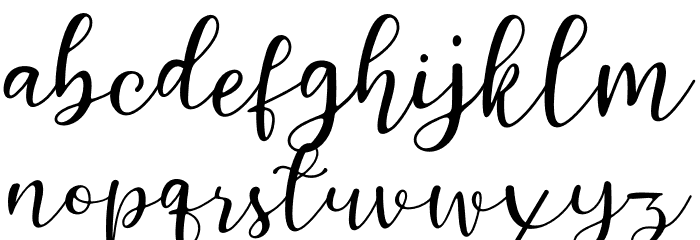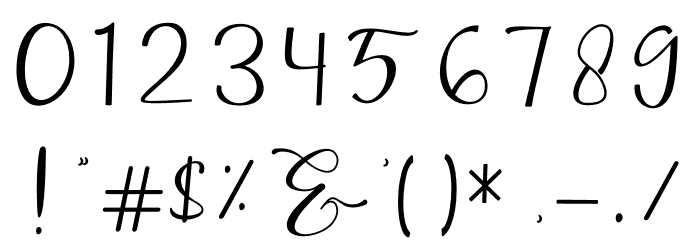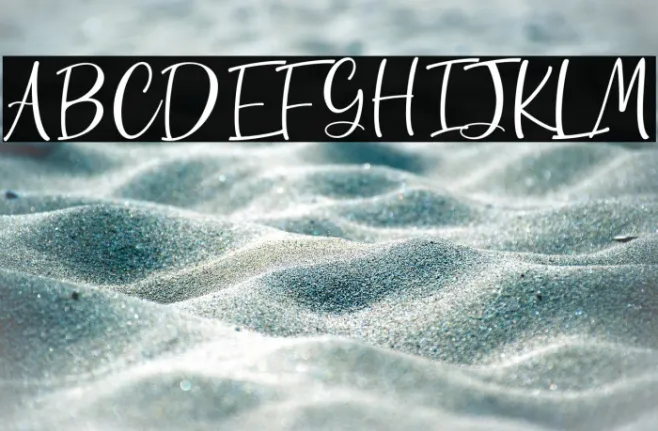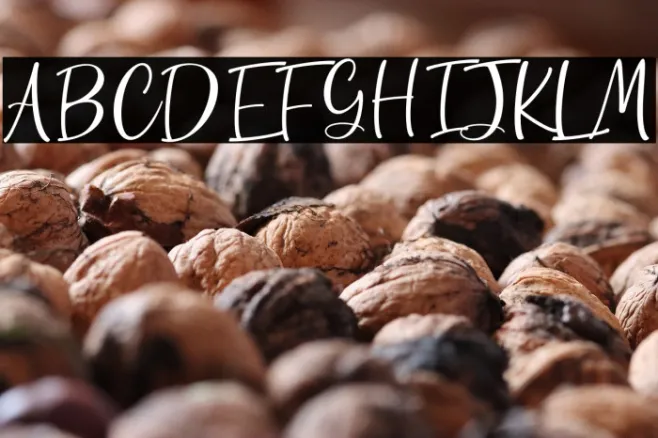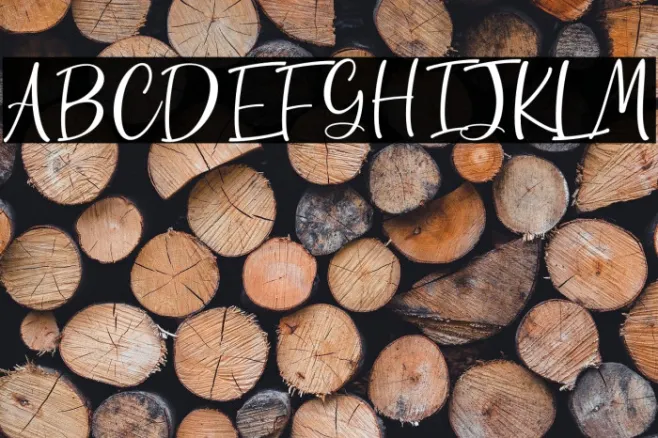
Guttenly Font
This elegant script font features a flowing, cursive style with smooth, connected strokes that give it a handwritten appearance. The uppercase letters are tall and graceful, while the lowercase letters have a charming, fluid motion. The numerals are consistent with the overall style, maintaining the same elegant curves. Special characters are thoughtfully designed to match the script's aesthetic, making it versatile for various uses. The font exudes a sense of sophistication and creativity, perfect for projects that require a personal touch.
An elegant, flowing script font with a handwritten style.
- Proposed Projects: Ideal for wedding invitations, greeting cards, branding, and logo design.
- Category: Script
- Overall Style: Elegant, Handwritten
- Use Case: Logos, Invitations, Greeting Cards